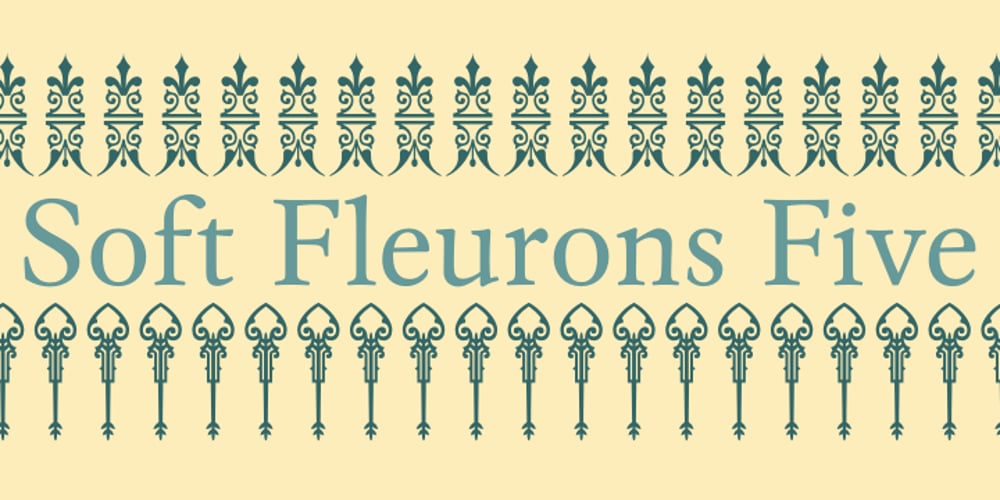
Soft Fleurons
Soft Fleurons font
Soft Fleurons Font Family was designed by Paulo W and published by Intellecta Design. Soft Fleurons contains 4 styles and family package options. Soft Fleurons is a dingbats/decorative display font featuring many different styles of flourishes and ornaments. Great for a vintage antique feel.